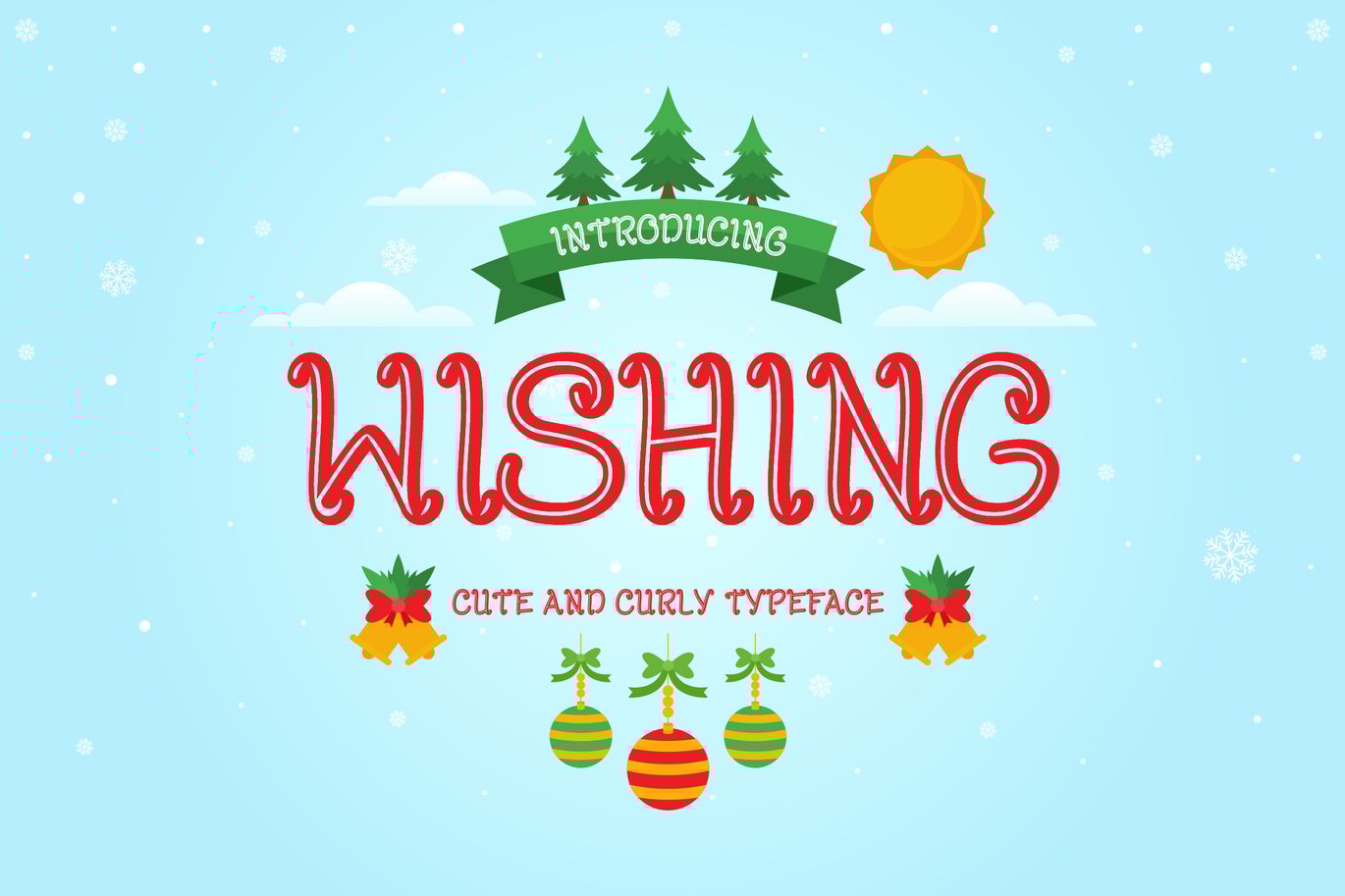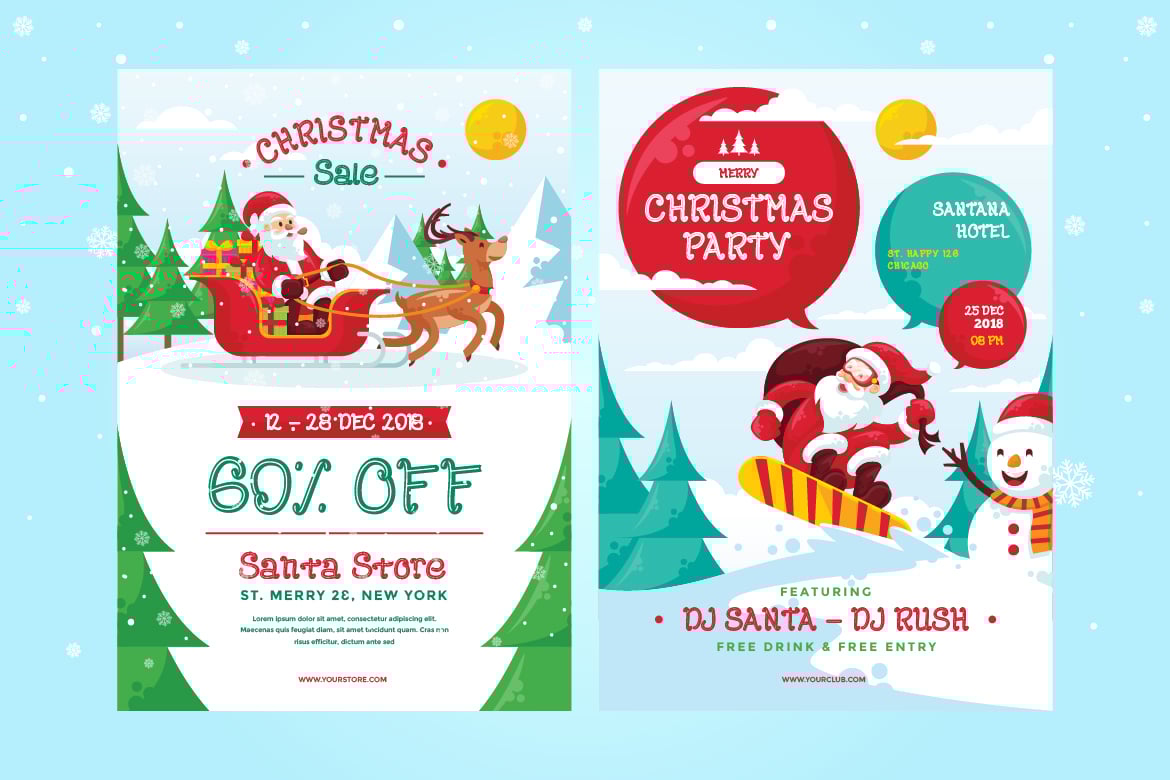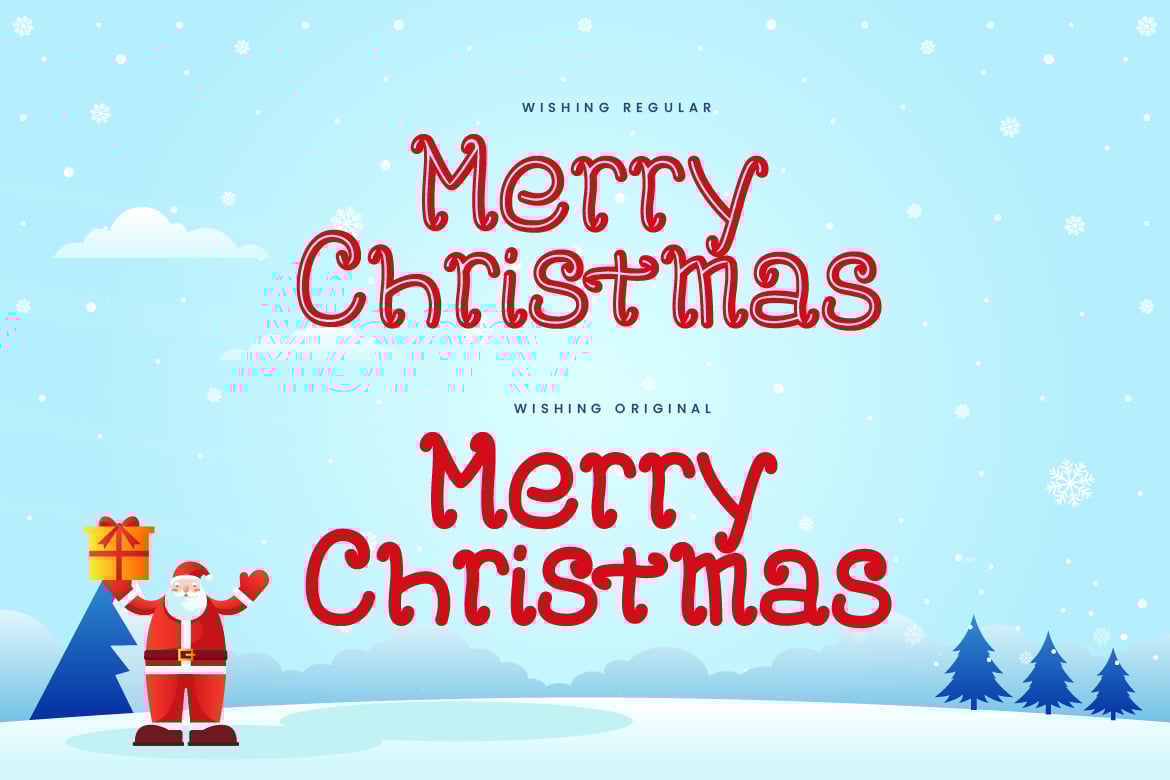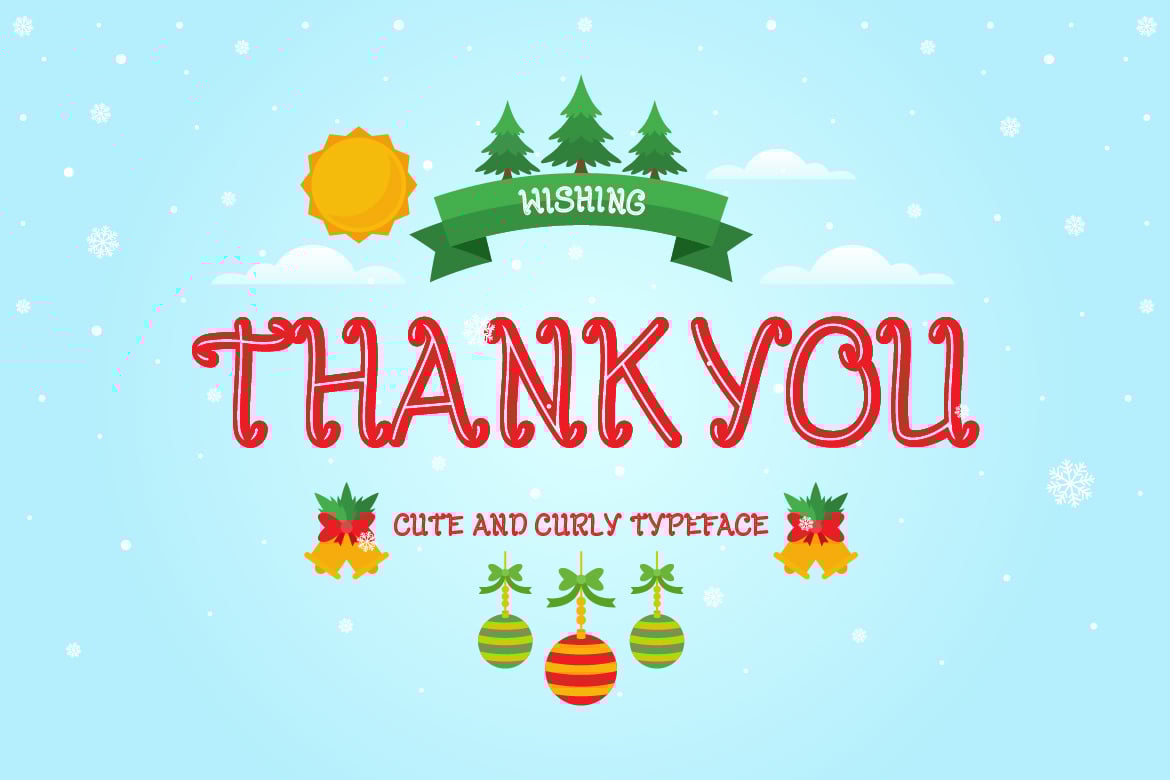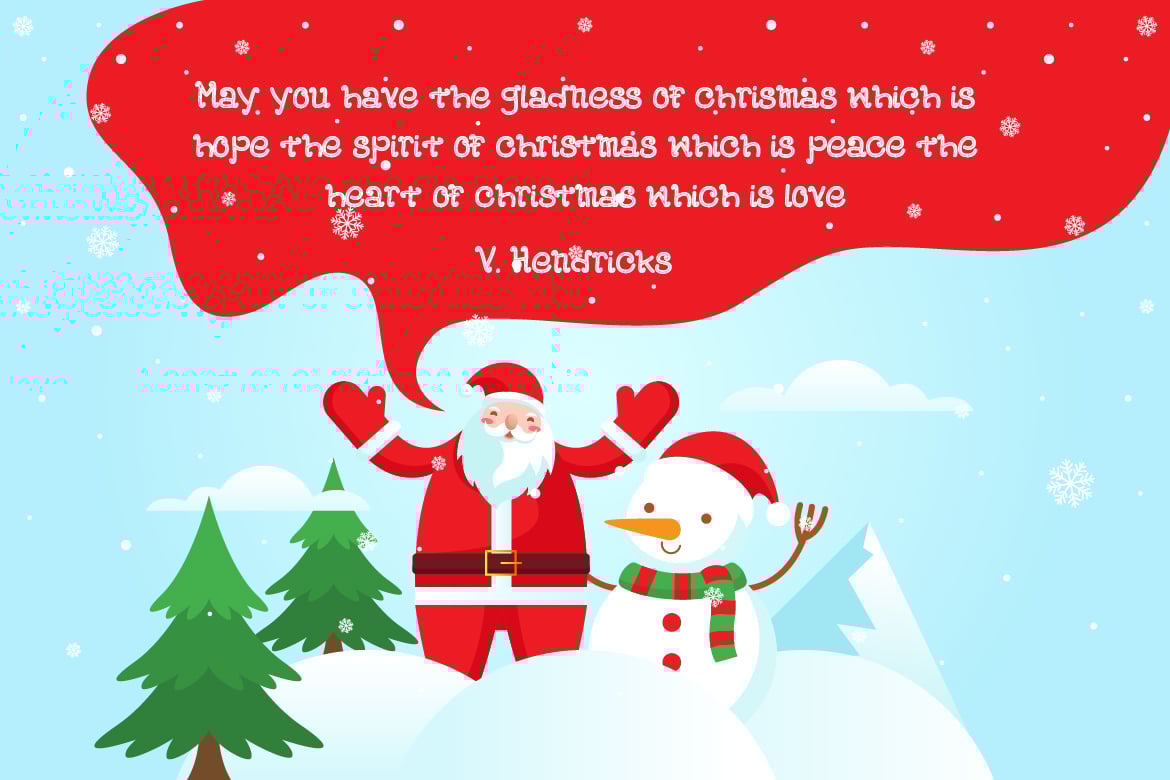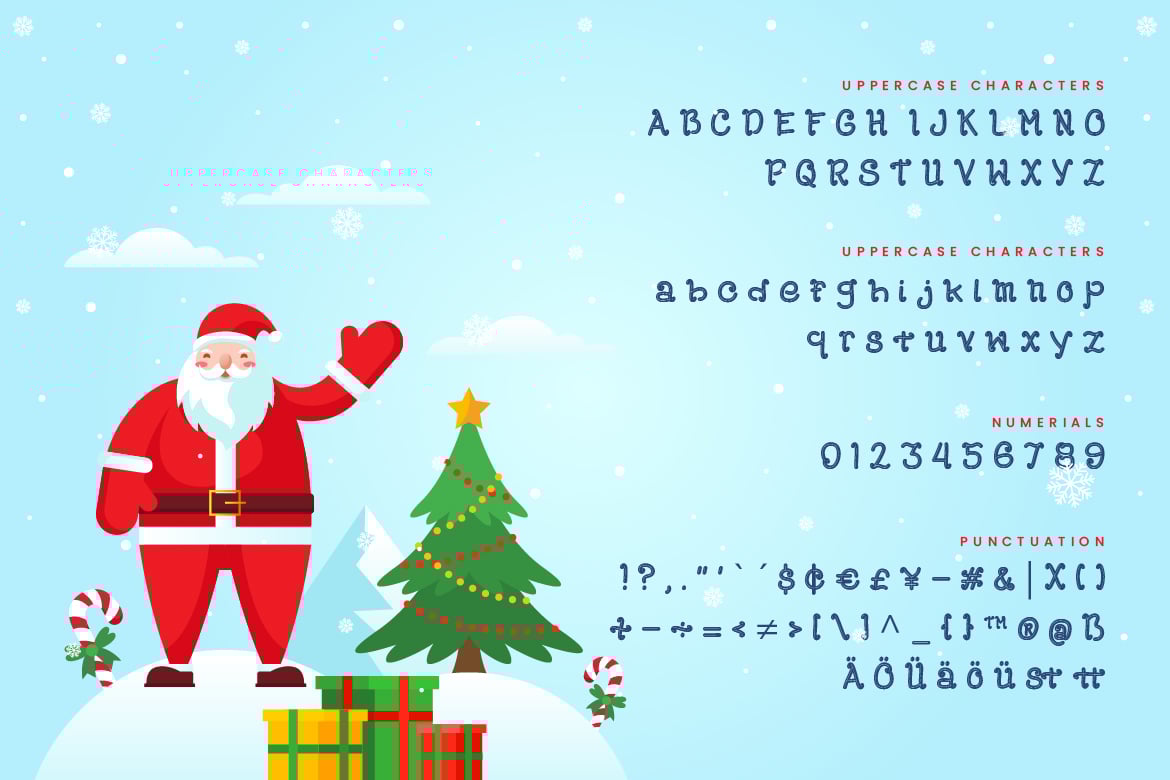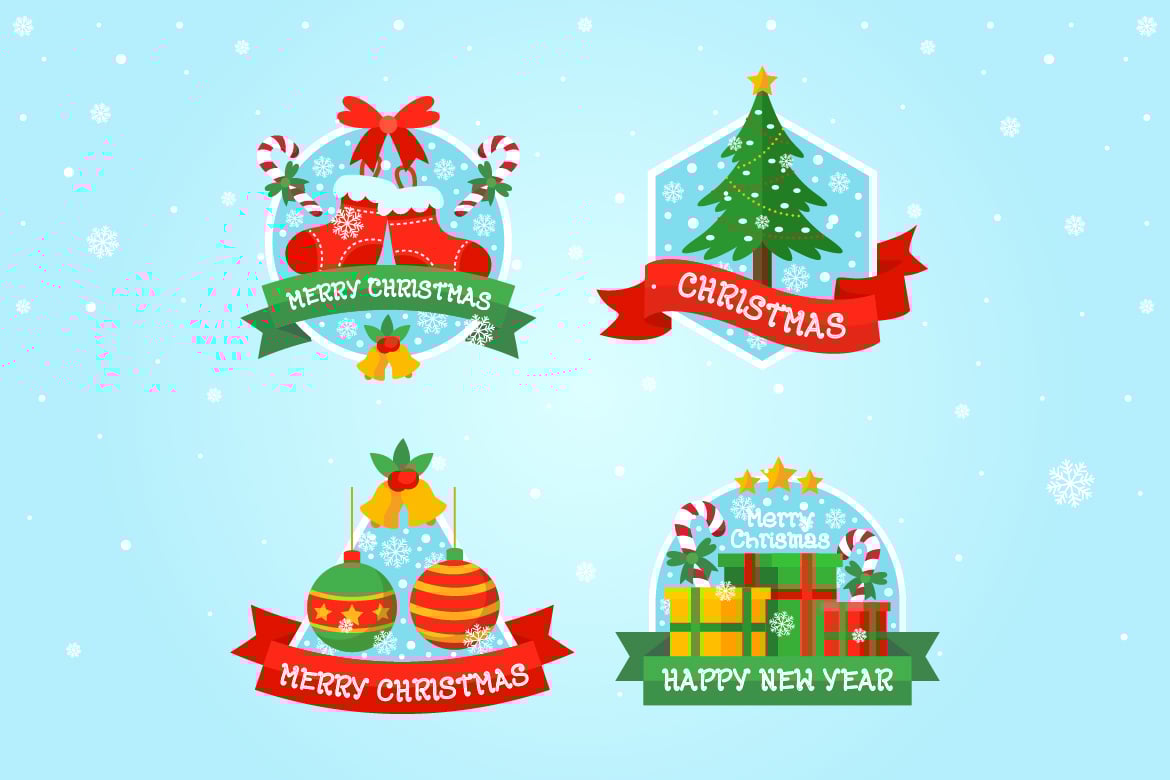
Wishing – Curly Decorative Christmas Font
Are you looking for a curly decorative font for christmas? We can help! Try to download our Wishing font. The font is suitable to use for all all purpose. Try to use it on Wedding invitation, greeting card, poster, quotes, postcard, photography, branding, editorial, and signature to see the best of it π